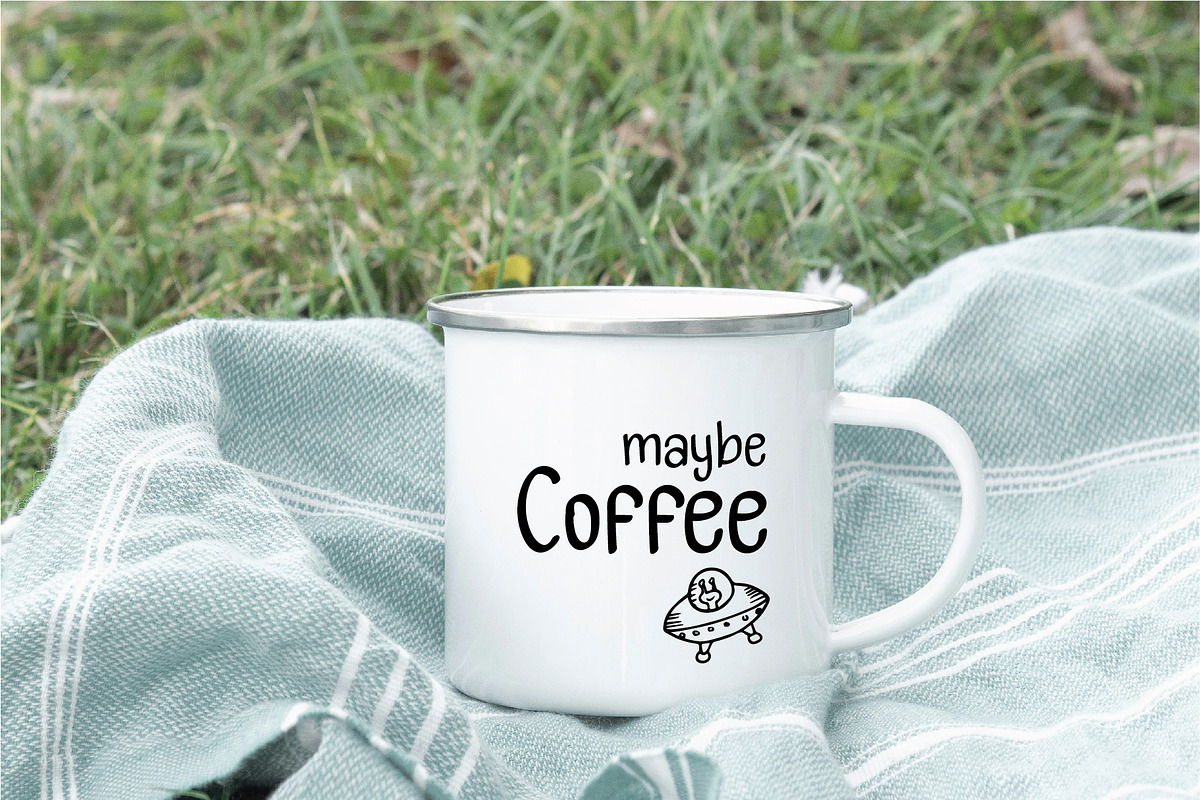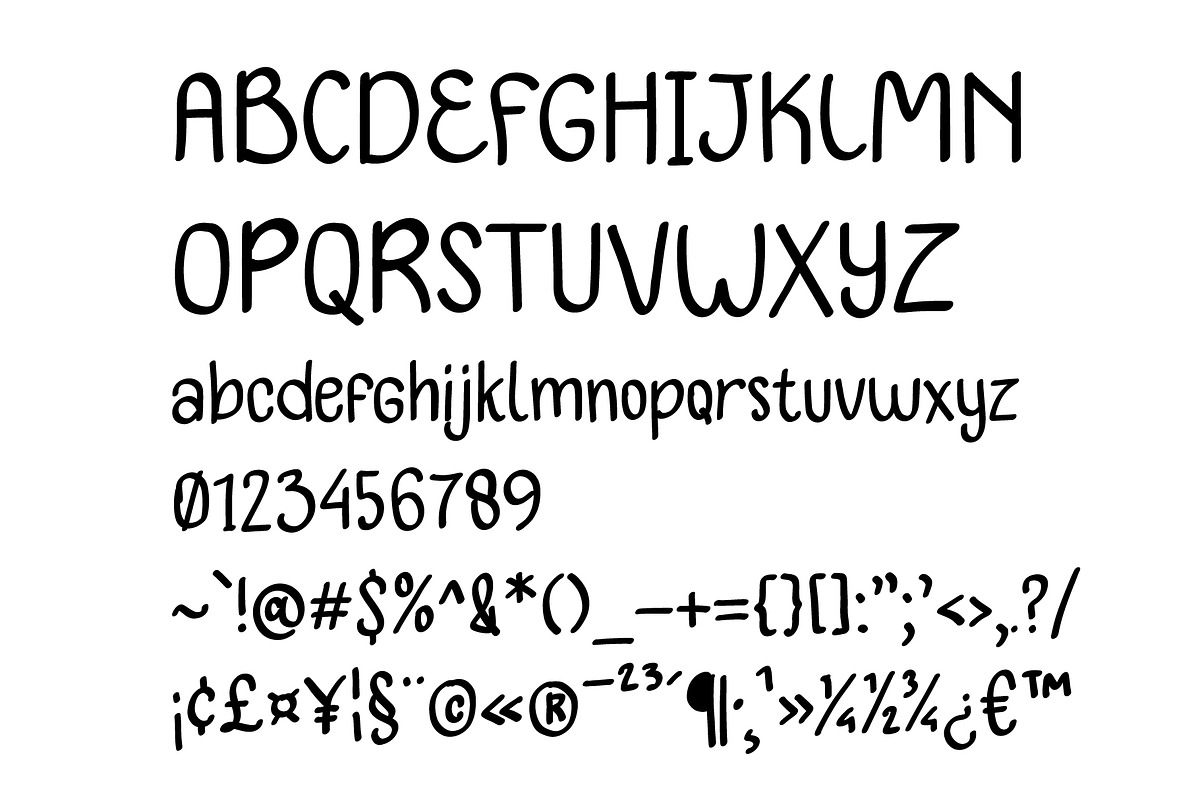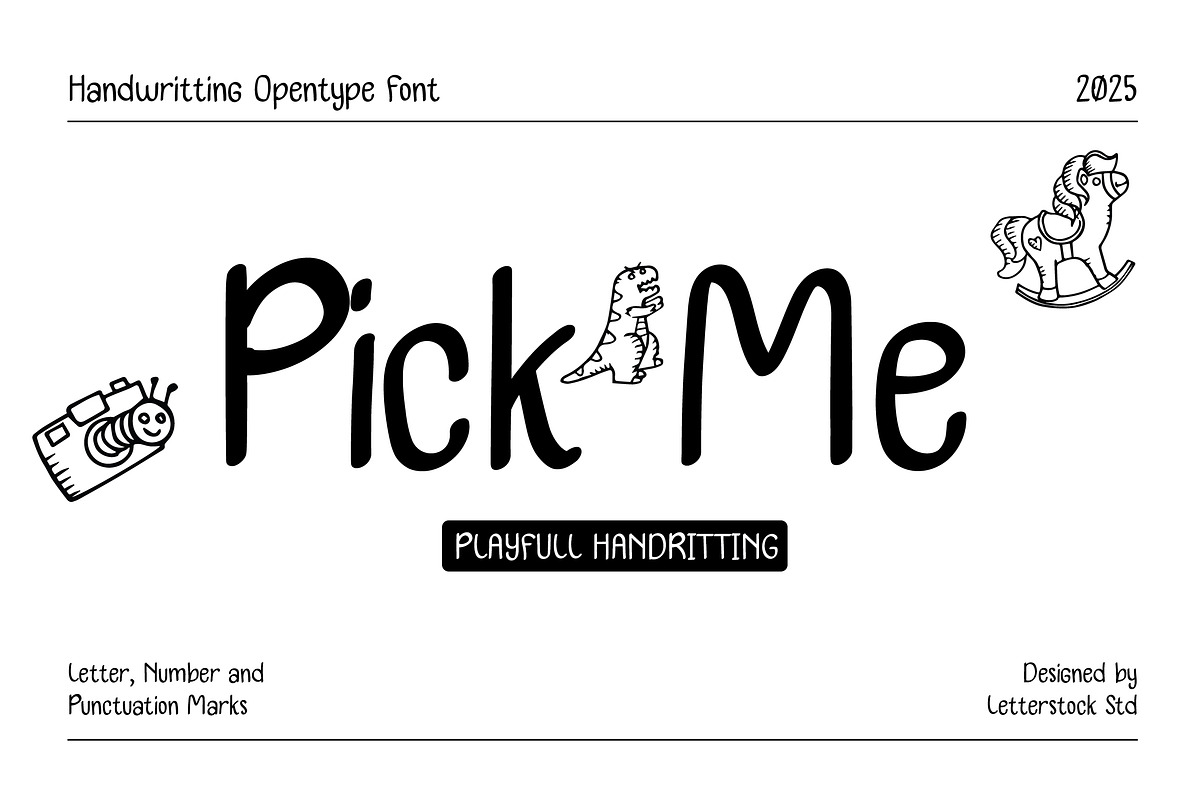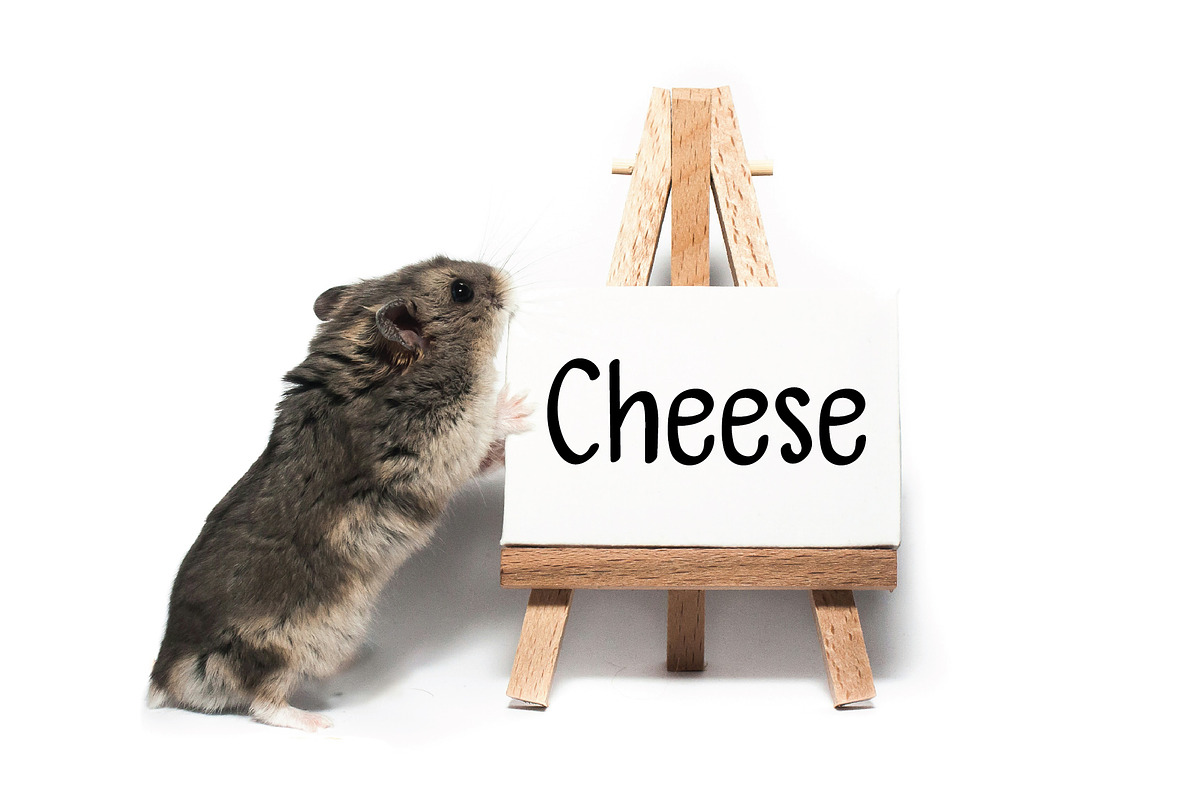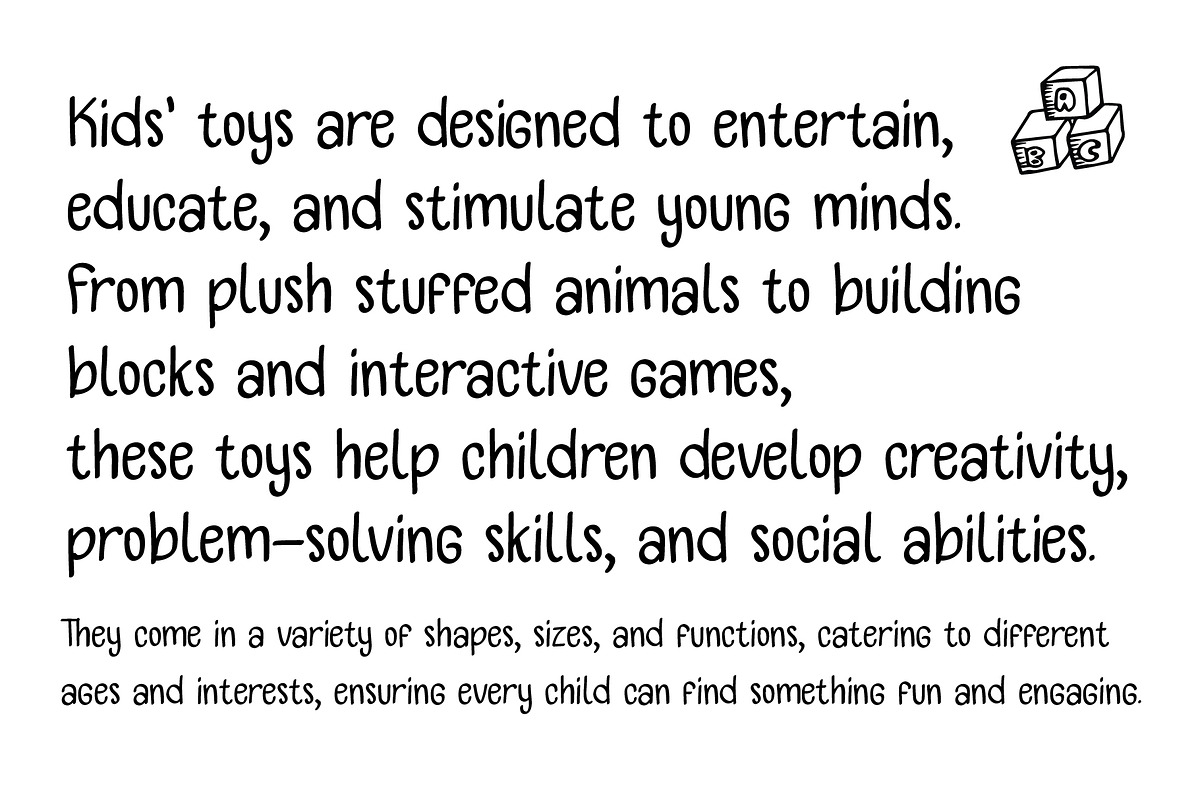
Pick Me
“Pick me” is playful hand writing font
“Pick me” is a perfectly choice for any creative decorative design such as logos, advertisements, watermark on photography, stationery, branding project, display and magazine, invitation, corporate brand, product design, label, business project and many other project with creative playful touch.